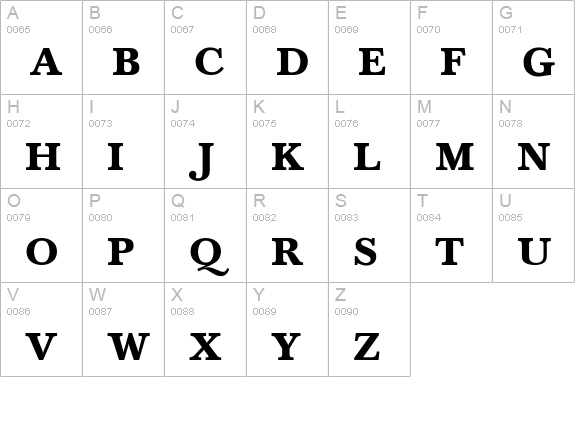
Hounds Bold Font Details
Hounds Bold is a strong, high-contrast variant in the Hounds typeface family \xE2\x80\x94 well suited to headlines, attention-grabbing titles, and strong calls-to-action.
Introducing Hounds Bold font, a striking and versatile typeface that exudes confidence and strength. With its bold and commanding letterforms, Hounds Bold is perfect for making a statement in your designs. Whether you're creating eye-catching posters, impactful headlines, or bold branding materials, this font is sure to capture attention. What sets Hounds Bold font apart is its unique balance of elegance and power, making it a standout choice for a wide range of design projects. Its clean lines and strong presence make it ideal for conveying a sense of authority and modernity. Best of all, Hounds Bold font is available for free download at FontsMarket.com. This means you can easily incorporate this impactful typeface into your projects without any cost. So why wait? Download Hounds Bold font today and elevate your designs with its bold and dynamic style.